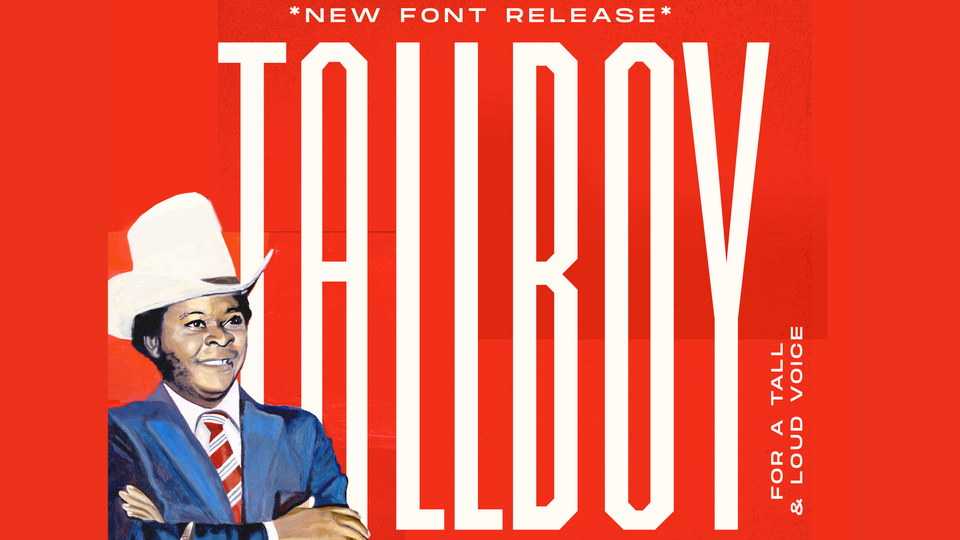
Download TALLBOY™ font, an ultra condensed tall typeface set in all caps only. The typeface designed for a Tall and Loud Voice™.
Designer: Brendan Keohane